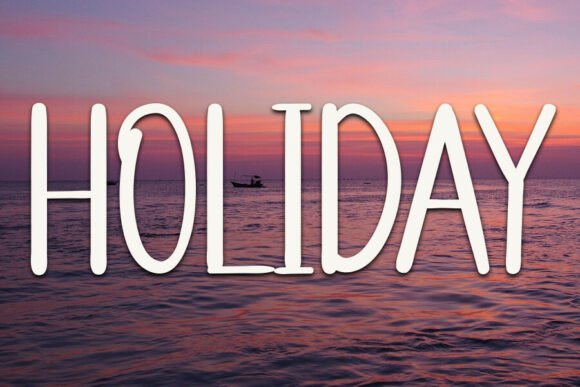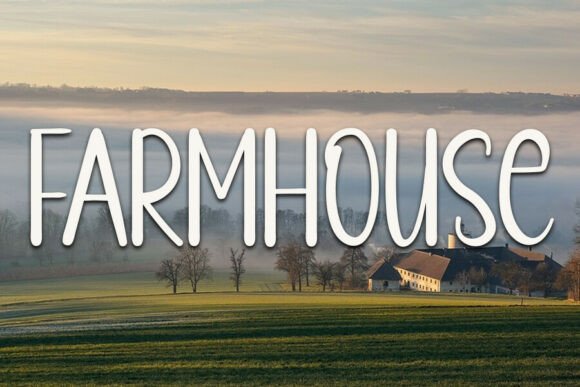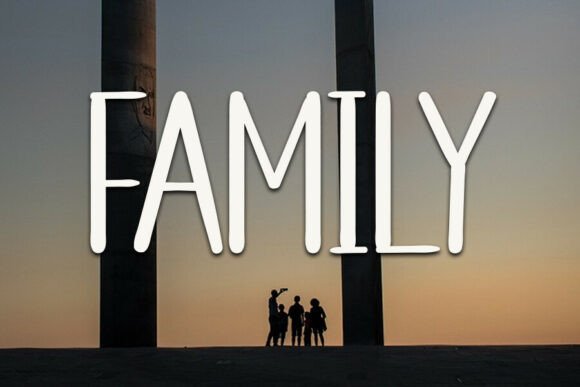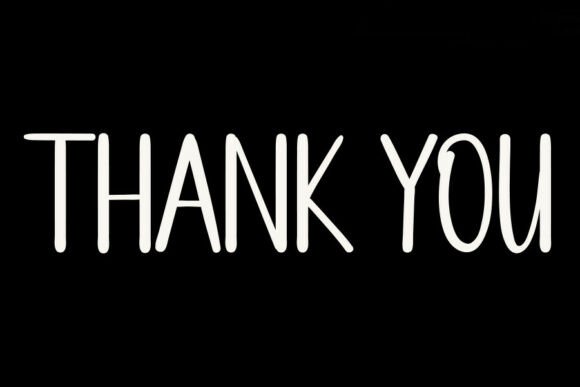
Introducing Goodnight Font: A Simple Handwritten Font for Your Creative Projects
Are you a designer or crafter looking for a font that can add a touch of simplicity and naturalness to your work? Look no further than Goodnight Font! This beautiful, handwritten font is perfect for a wide range of applications, from greeting cards to headlines, and is sure to become a staple in your design toolkit.
What is Goodnight Font?
Goodnight Font is a simple, yet elegant handwritten font that is designed to bring a sense of warmth and approachability to your designs. With its flowing lines and natural curves, this font is perfect for creating a sense of comfort and familiarity in your work. Whether you’re designing a greeting card, a poster, or a website, Goodnight Font is sure to add a touch of personality and whimsy to your project.
Key Features of Goodnight Font
- Simple and Handwritten: Goodnight Font is a handwritten font that is simple, yet elegant. Its flowing lines and natural curves make it perfect for creating a sense of comfort and familiarity in your work.
- Versatile: Goodnight Font is a versatile font that can be used for a wide range of applications, from greeting cards to headlines, and even website designs.
- Natural Feel: Goodnight Font has a natural feel that is sure to add a touch of simplicity and elegance to your work.
Uses of Goodnight Font
Goodnight Font is a versatile font that can be used for a wide range of applications, including:
- Greeting Cards: Goodnight Font is perfect for creating greeting cards for special occasions, such as birthdays, holidays, and weddings.
- Headlines: Goodnight Font can be used to create eye-catching headlines for posters, flyers, and website designs.
- Website Design: Goodnight Font can be used to add a touch of personality and whimsy to website designs, including blog posts, product descriptions, and more.
- Crafting: Goodnight Font is perfect for crafters who want to add a personal touch to their work, including scrapbooking, journaling, and card making.
Benefits of Using Goodnight Font
There are many benefits to using Goodnight Font in your designs, including:
- Unique and Personal Touch: Goodnight Font adds a unique and personal touch to your designs, setting them apart from others.
- Easy to Read: Goodnight Font is easy to read, making it perfect for body text and headlines.
- Customizable: Goodnight Font can be customized to fit your design needs, including changing the color, size, and style.
Tips for Using Goodnight Font
Here are some tips for using Goodnight Font in your designs:
- Use it for Headlines: Goodnight Font is perfect for creating eye-catching headlines that grab attention.
- Pair it with Other Fonts: Goodnight Font can be paired with other fonts to create a unique and interesting design.
- Experiment with Colors: Goodnight Font can be used with a variety of colors to create a unique and eye-catching design.
Goodnight Font is a beautiful, handwritten font that is perfect for designers and crafters who want to add a touch of simplicity and naturalness to their work. With its flowing lines and natural curves, this font is sure to become a staple in your design toolkit. Whether you’re designing a greeting card, a poster, or a website, Goodnight Font is sure to add a unique and personal touch to your project.